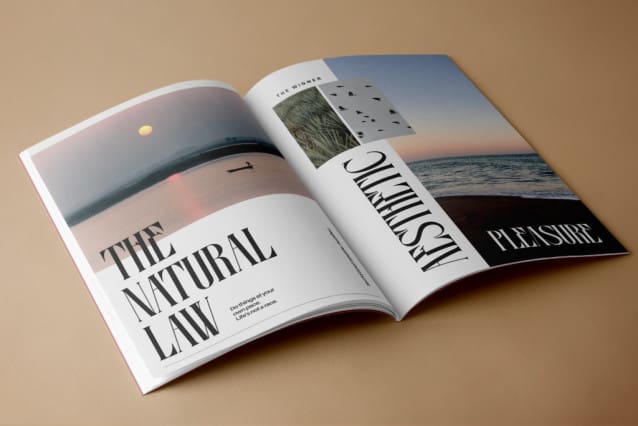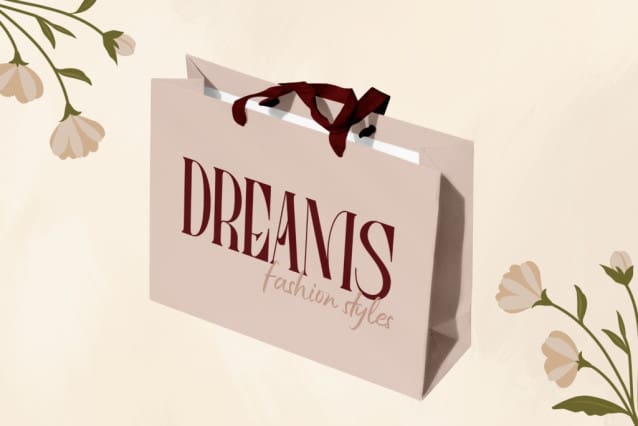
Eroum Font
Eroum Font is a modern serif font blending elegance and classic charm. With unique ligatures and multilingual support, it’s perfect for branding, editorial design, and sophisticated projects. Its refined style adds a timeless touch to your creative work. Eroum Font offers beautiful typographic harmony for a diversity of design projects, including logos & branding, social media posts, advertisements & product designs.